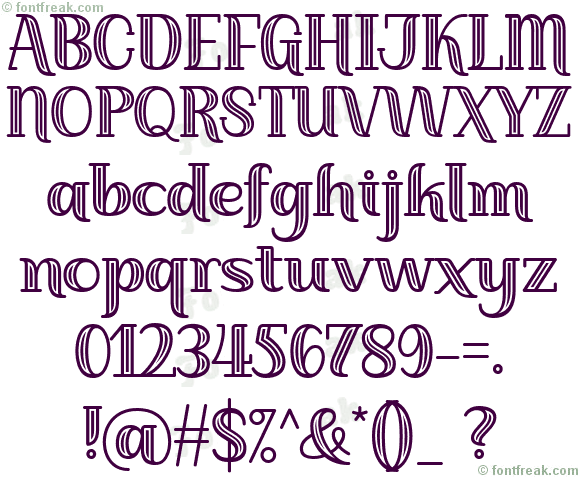
Jumat
The Jumat font by Situjuh Nazara is a captivating display typeface that blends modern aesthetics with a hint of elegance. As a decorative font, it features unique visual characteristics that set it apart. The stroke weight is consistent, yet the letters have a playful flair with rounded edges and a slight italic slant, adding a dynamic feel to any design. The spacing is well-balanced, allowing for readability while still making a bold statement. The font's subtle decorative elements contribute to its charm, making it an eye-catching choice for various projects.
Jumat excels in use cases that require a touch of personality and creativity. It is particularly well-suited for wedding invitations, where its elegance can enhance the romantic theme. Additionally, it works beautifully for movie posters, capturing attention with its striking design. Restaurant menus can benefit from the font as well, helping to create an inviting atmosphere that reflects the dining experience. Content creators looking to add flair to social media graphics will find Jumat to be a versatile option, perfect for headlines and quotes that demand attention.
The target audience for the Jumat font includes graphic designers, small business owners, and content creators who wish to elevate their projects with a distinctive typeface. The font's playful yet sophisticated style makes it a valuable asset in any designer's toolkit.
What makes the Jumat font stand out is its ability to blend whimsy with professionalism, making it suitable for both casual and formal applications. Its unique visual appeal ensures that it captures attention while still maintaining readability, making it an excellent choice for those seeking a font that enhances their creative projects. For those interested in experimenting with this striking typeface, the Jumat font free download is readily available, allowing for easy integration into your design work.